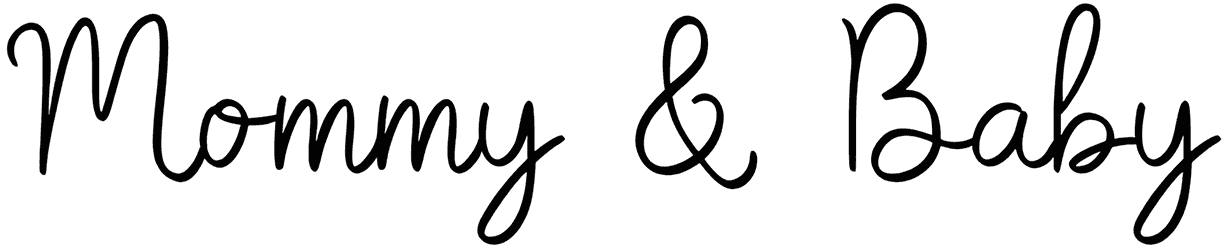
Mommy and Baby Script Font
Don’t miss this opportunity to adorn your context with a soft and delicate face like Mommy and Baby Script. This baby font, with its minimal twisted outward and friendly vibe, is an apt item for numerous designs. Use Mommy and Baby Script for your forthcoming projects, for instance, baby shower services, apparel, social media graphics, or the like, and be impressive.